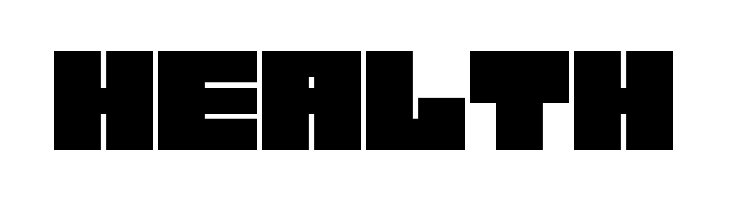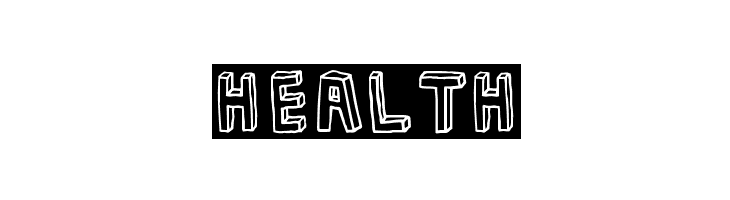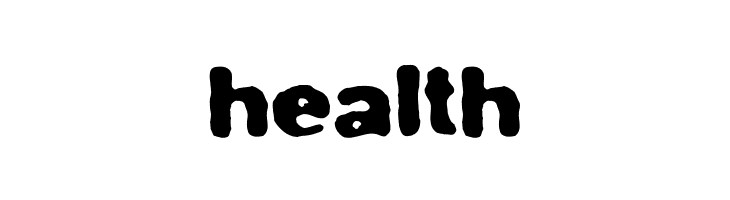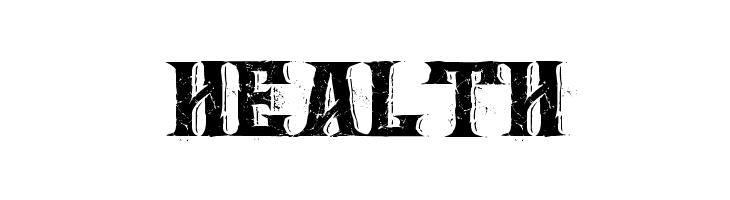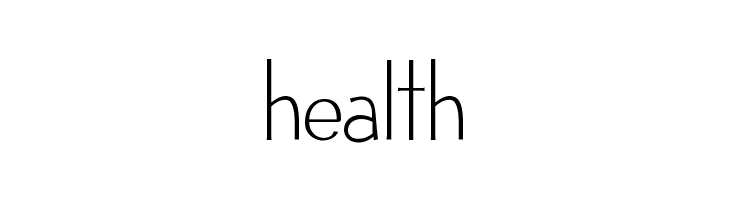
A bold, decorative font with circular, flowing characters and a modern, artistic style.
A bold, circular, and artistic font with a modern and playful style.
A bold, modern sans-serif typeface with strong, clean lines.
A dynamic, flowing script font with elegant cursive strokes.
A dynamic and fluid script font with smooth curves and medium contrast.
A bold, rounded font with a playful and modern aesthetic.
A bold, abstract font with circular motifs and artistic design.
A bold, decorative font with geometric shapes and unique cut-out patterns.
A bold, expressive handwritten font with dynamic brush strokes.
A bold, playful font with angular strokes and a dynamic, whimsical style.
A bold, graffiti-inspired font with sharp, angular lines and high contrast.
A bold, geometric font with sharp, angular characters.
A clean, modern font with balanced proportions and excellent readability.
A modern and elegant font with smooth curves and sharp edges.
A bold, playful font with rounded edges and a hand-drawn look.
A bold, playful font with a hand-drawn, casual style.
A modern, minimalist font with geometric lines and balanced spacing.
A bold, distressed font with a textured, vintage look.
A distressed serif font with a vintage, rustic appearance.
A playful, hand-drawn font with bold, irregular characters.
A playful, whimsical script font with interconnected, rounded letters and a handwritten aesthetic.
A modern, geometric font with clean, circular lines and consistent stroke widths.
A modern, geometric font with tall, narrow characters and consistent stroke width.
A modern, geometric sans-serif font with a tall, condensed structure.